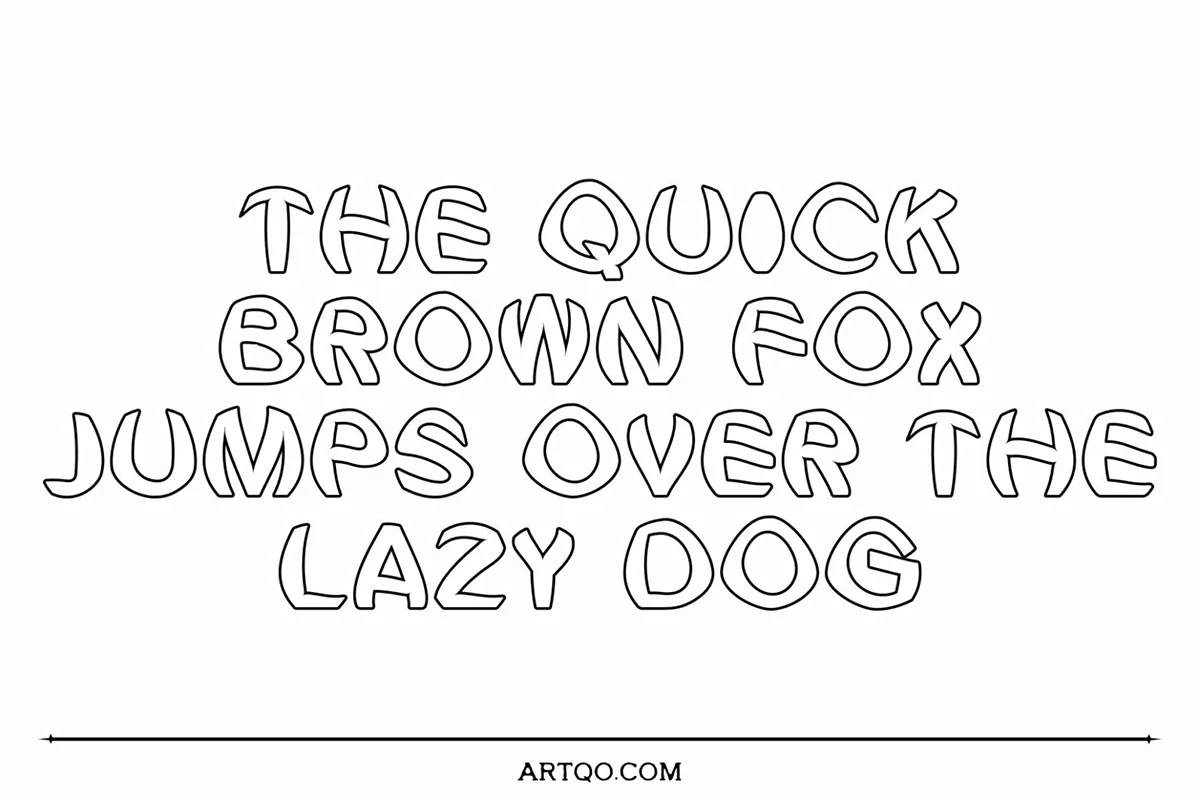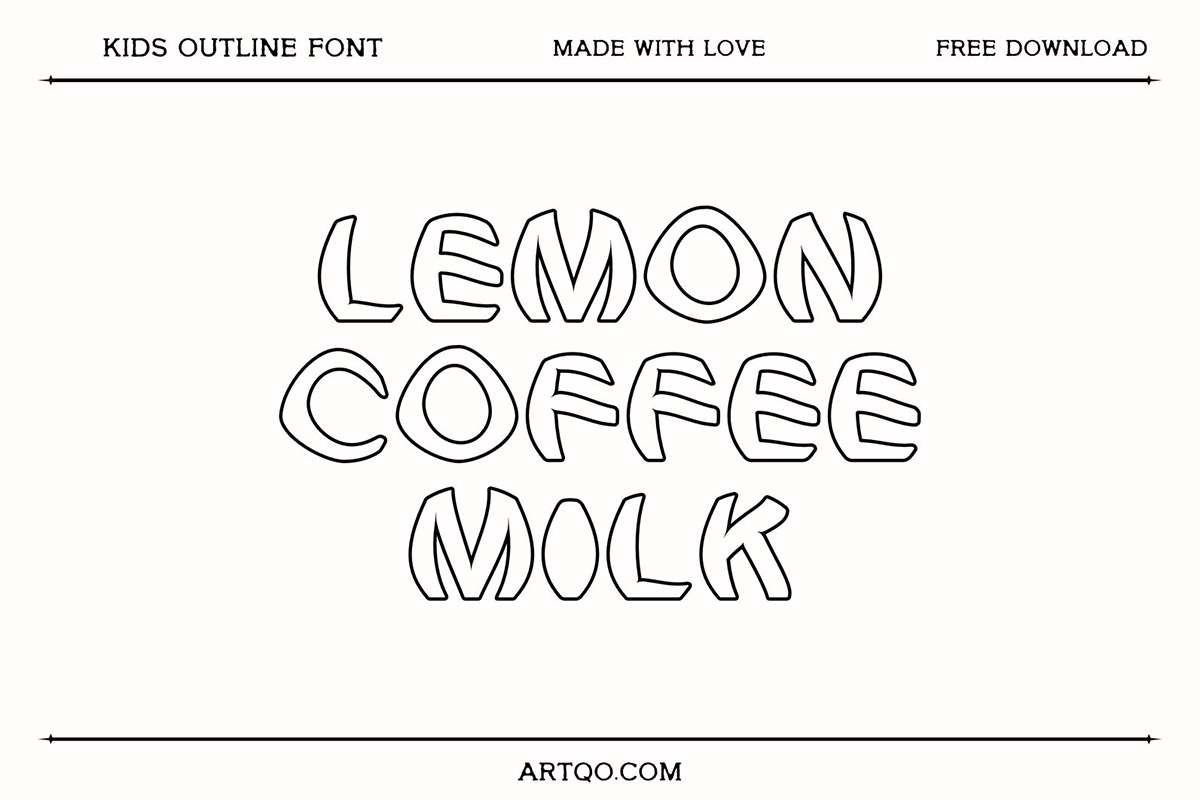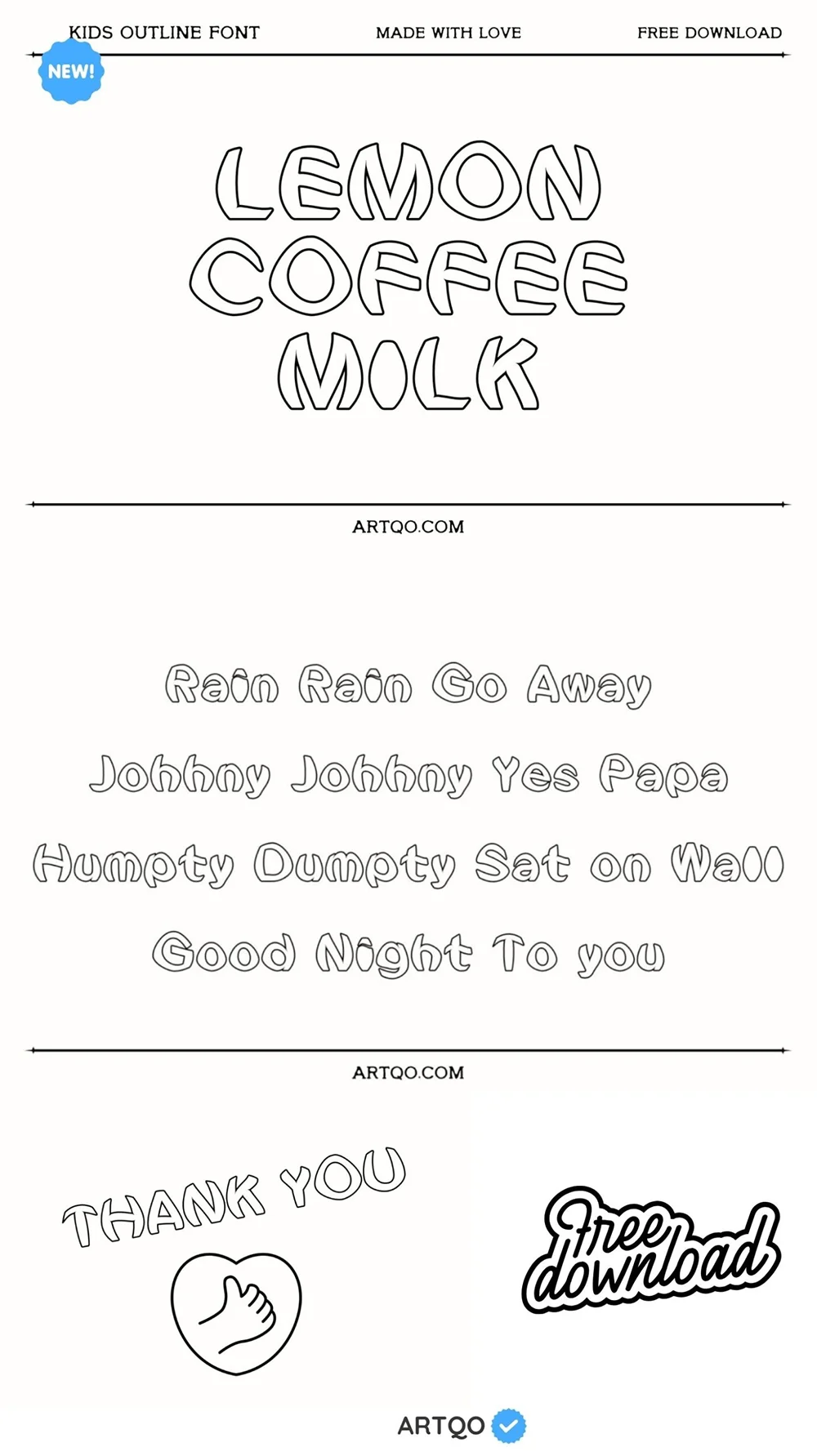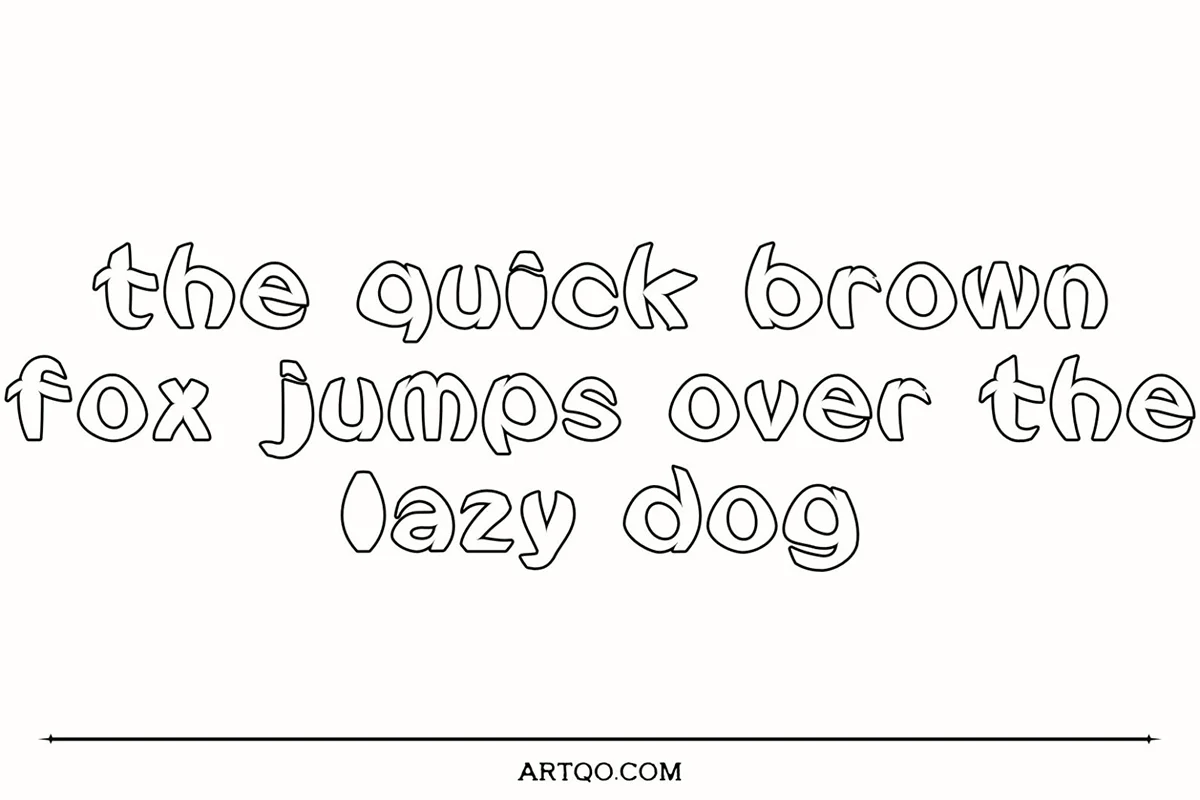
Lemon Coffee Milk Font
Lemon Coffee Milk Font is a fun and creative outline font with a playful, hand-drawn look. It’s perfect for projects that need a friendly, casual feel. The uneven, outline gives it a unique and relaxed style, making it great for various designs.
This font is easy to read, even with its artistic outline effect. You can use it for many things like posters, social media graphics, school projects, or even ads for fun events. Whether you are designing for kids or adults, this font adds a fun, handmade look to any project.
Key Features:
• Playful Hand-drawn Look
• Uppercase & Lowercase Letters
• Numbers
• Easy to Read